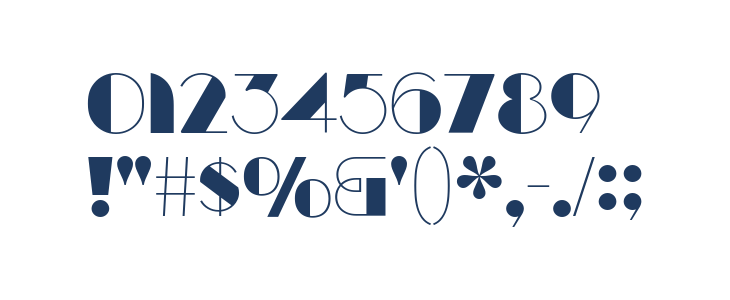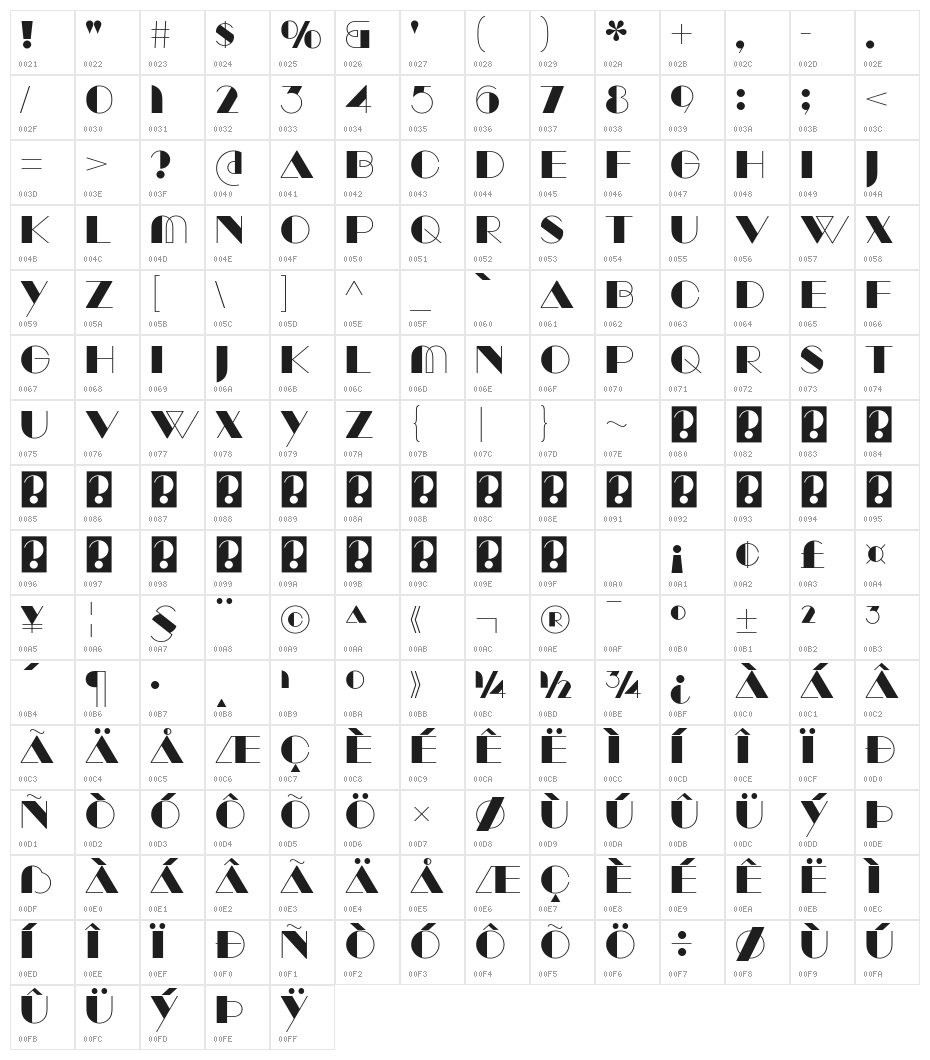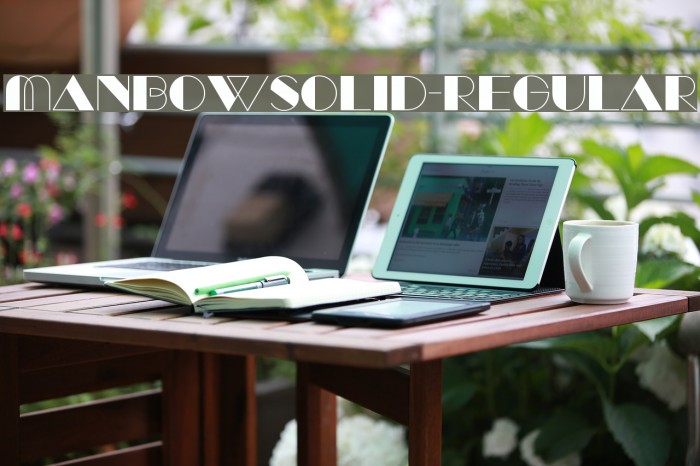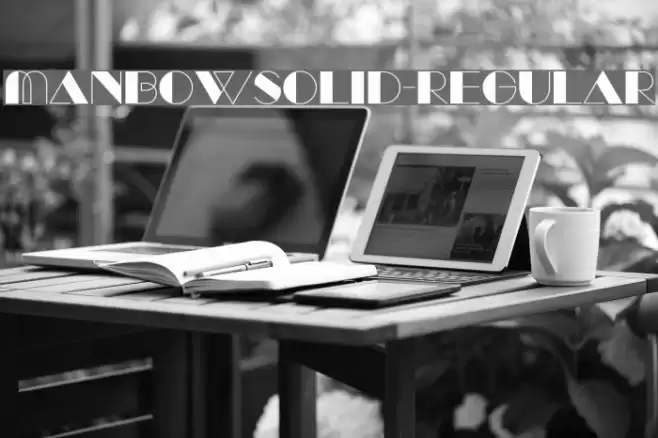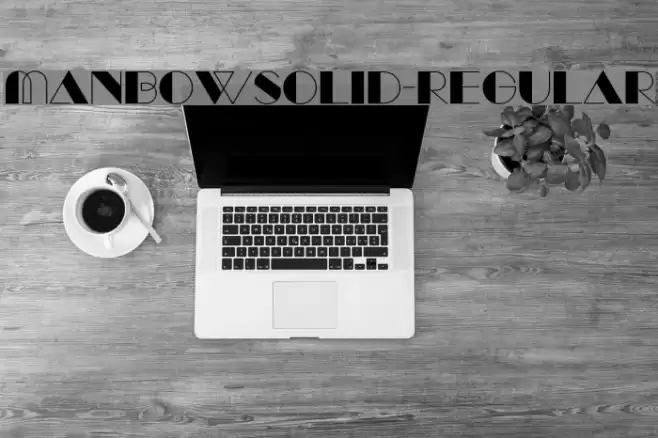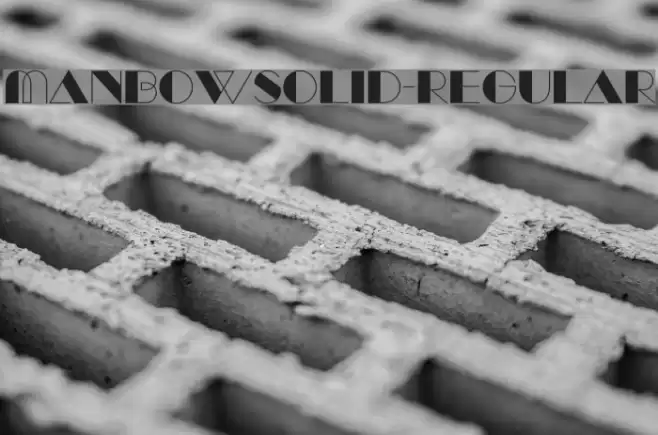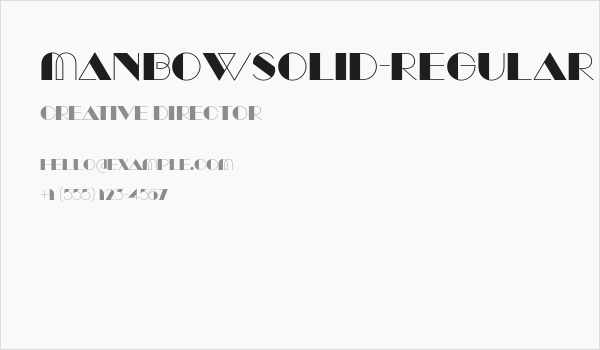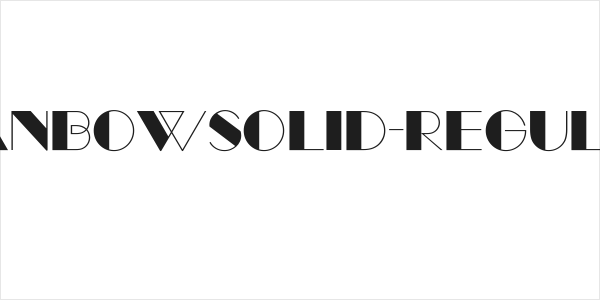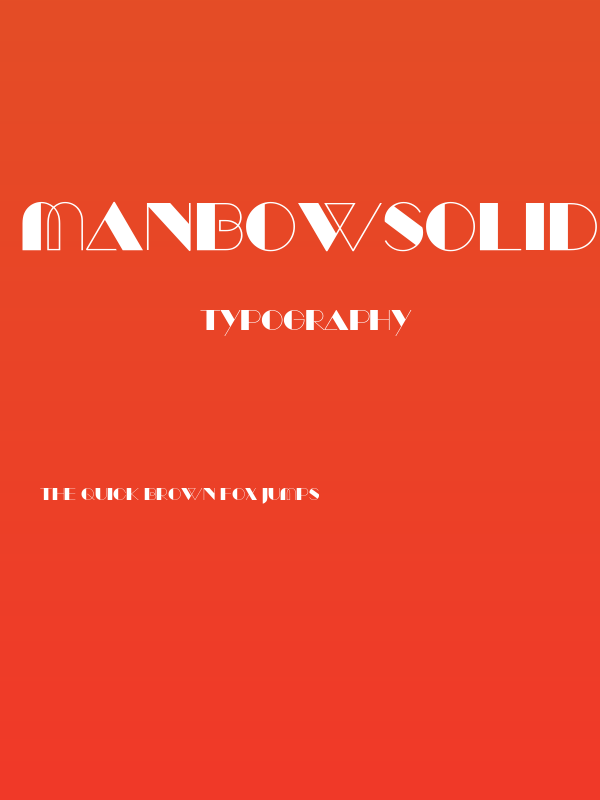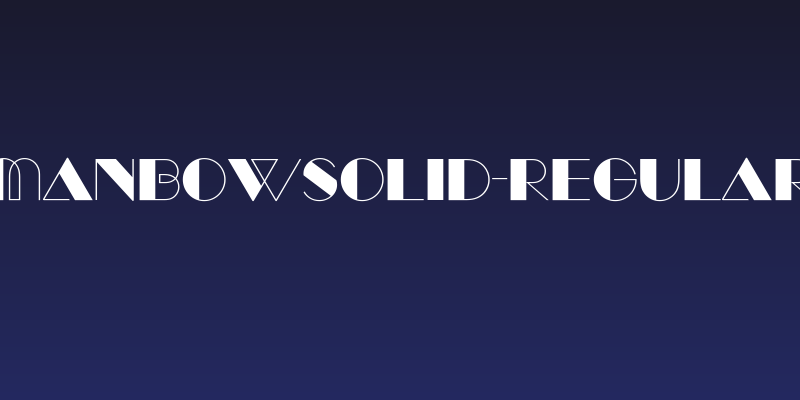
ManbowSolid-Regular Font
ManbowSolid-Regular Description
This font features a bold, geometric design with a modern and artistic flair. The characters are constructed with a mix of sharp angles and smooth curves, creating a dynamic and visually striking appearance. The uppercase letters are particularly distinctive, with unique shapes that emphasize their geometric nature. The numbers and special characters follow the same design principles, ensuring consistency throughout the typeface. This font's style is both futuristic and retro, making it versatile for various creative applications.